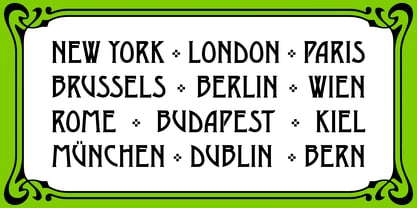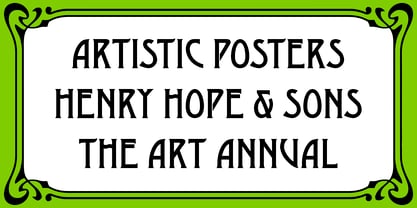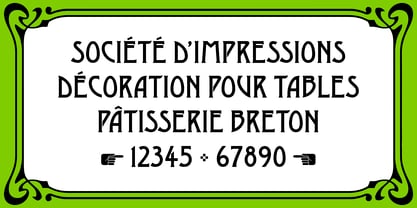
RMU Viennese™
von RMU
Die Schriftfamilie RMU Viennese wurde von Ralph M. Unger entworfen und von RMU veröffentlicht. RMU Viennese enthält 1 Stile. Mehr über diese Familie
Freshly drawn and redesigned, RMU Viennese is my solid version of the Art Nouveau font Desdemona, originally released by the Viennese foundry Brendler & Sons. This font contains four discretionary ligatures IJ, ij, TT and tt.
Designer: Ralph M. Unger
Foundry: RMU